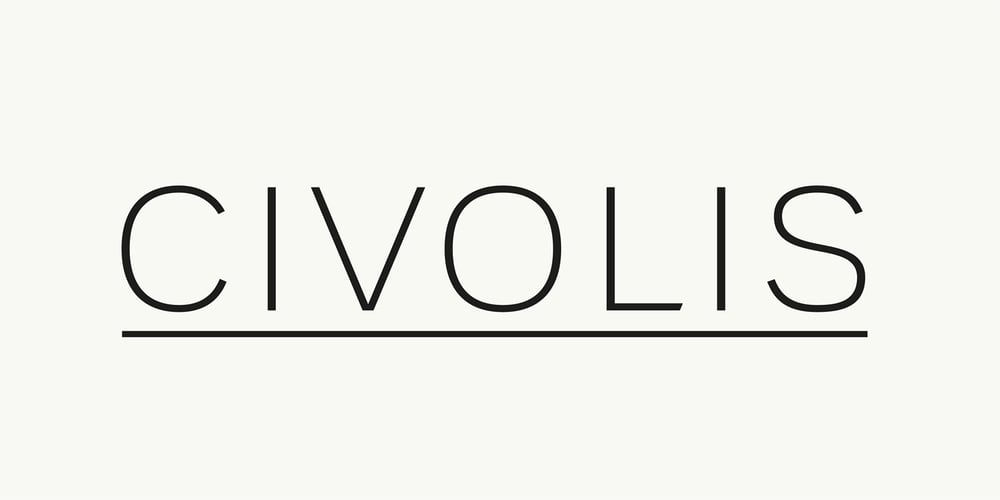
Civolis
Civolis font
Civolis Font Family was designed by Christian Gwiozda and published by Furiosum. Civolis contains 8 styles and family package options. Civolis is a small and modest humanist sans family. Accompanied by a friendly italic, wide latin language support, oldstyle figures and ligatures, it is ready for a wide array of applications.